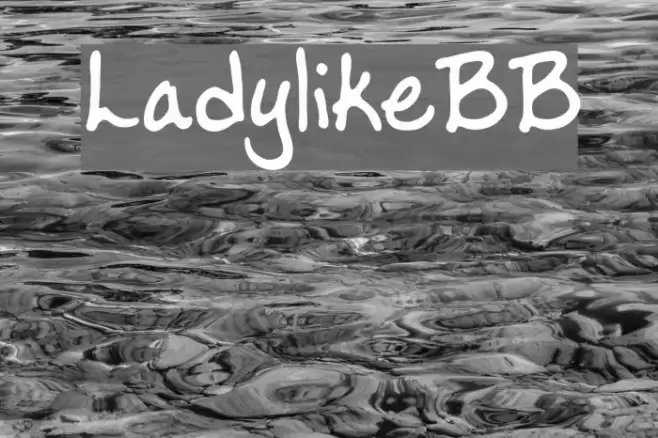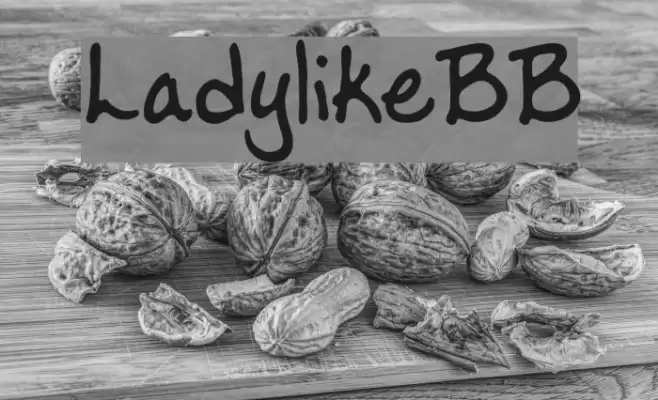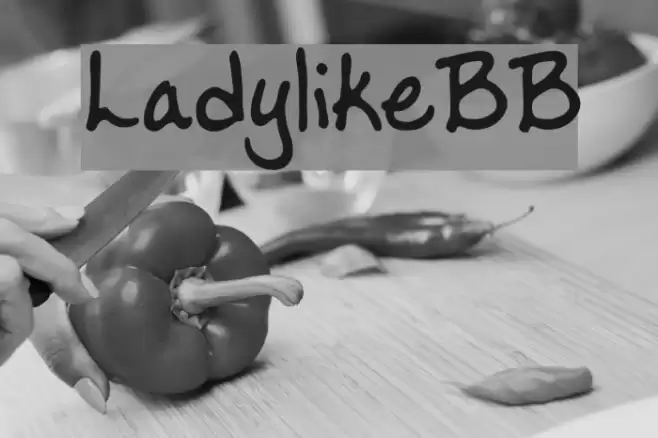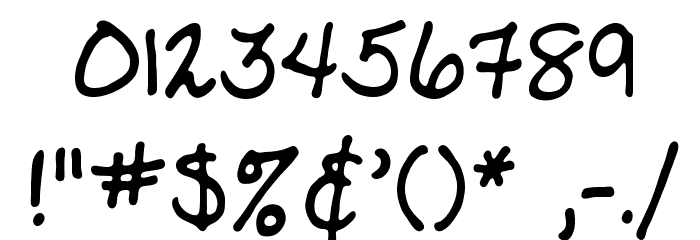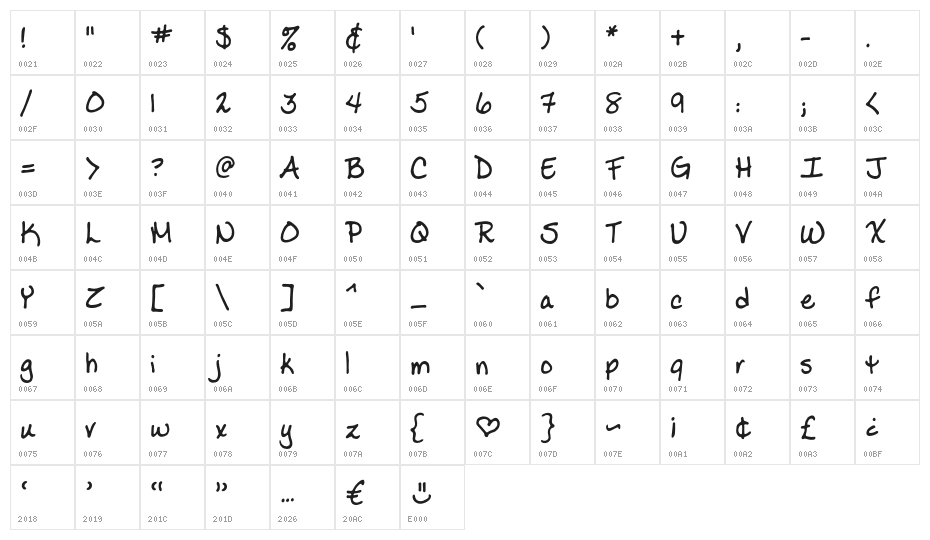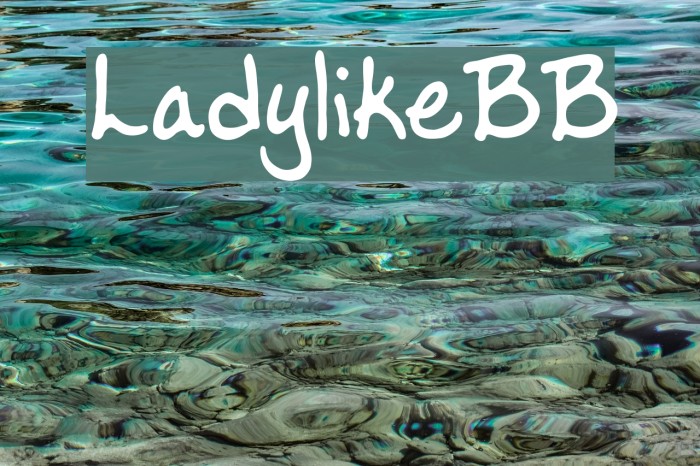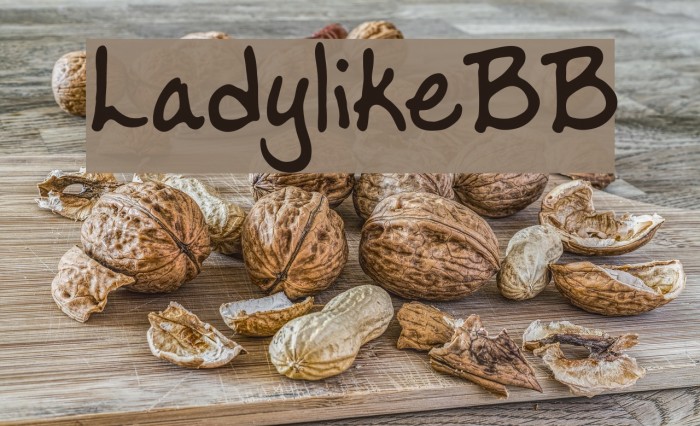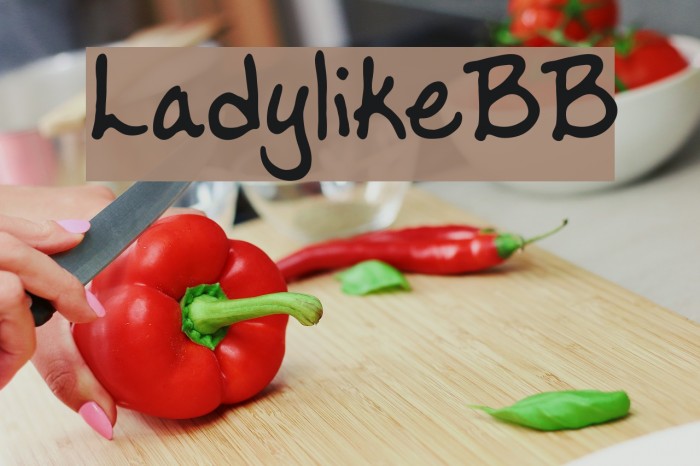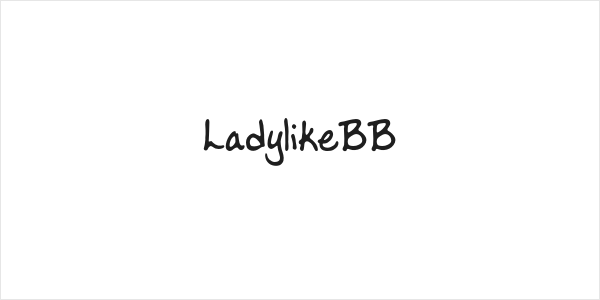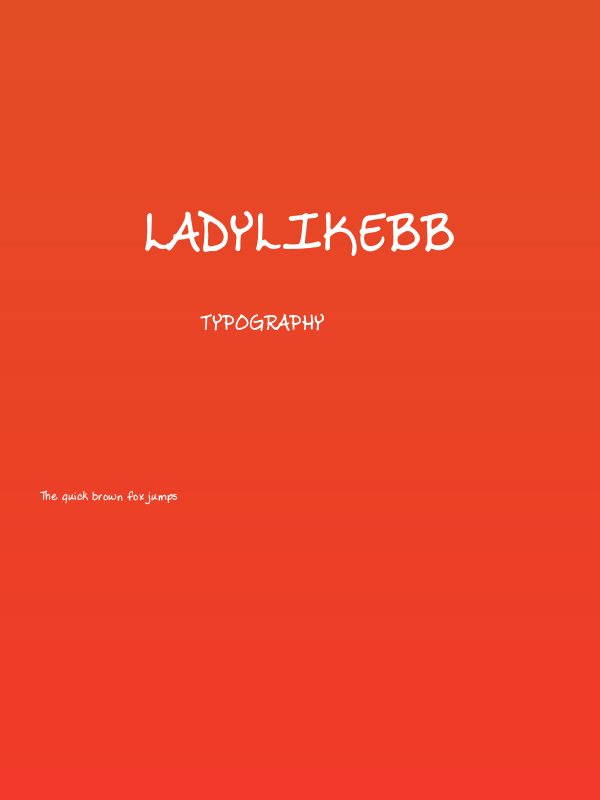
LadylikeBB Font
LadylikeBB Description
This font exudes a playful and casual handwritten style, characterized by its smooth, flowing curves and slightly irregular strokes that mimic natural handwriting. The letters are well-rounded and maintain a consistent baseline, giving it a cohesive appearance. The uppercase letters are bold and prominent, while the lowercase letters are more relaxed and approachable. Numbers and special characters follow the same informal style, making the font versatile for various creative applications. Its overall appearance is friendly and inviting, suitable for projects that require a personal touch.
A playful, handwritten font with smooth curves and a casual style from Uncategorized fonts.
- Proposed Projects: Ideal for greeting cards, invitations, children's books, and personal branding.
- Overall Style: Casual
- Use Case: Headlines, Logos, Informal Text